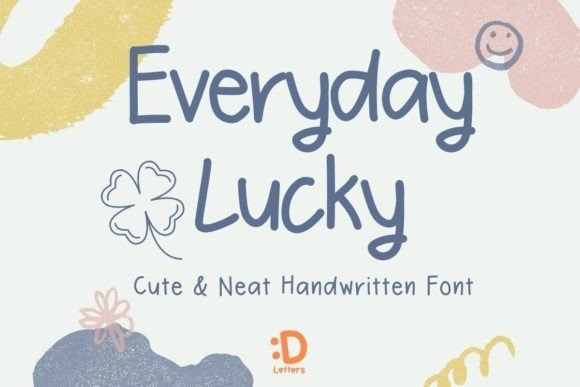
Unlocking Creativity with the Perfect Font
Have you ever found yourself lost in a sea of blank pages, struggling to get your creative juices flowing? We’ve all been there – staring at a blank screen, trying to conjure up the perfect idea, only to end up with a jumbled mess of thoughts and half-baked ideas. But what if I told you that the key to unlocking your creativity lies in the simplest of things – a font?
Enter Everyday Lucky Font, a charming and versatile handwritten font designed specifically for digital note-taking and creative projects. This font is a game-changer for designers, offering a unique blend of style and functionality that makes it perfect for everything from Procreate designs to blog posts, logos, and invitations. With Everyday Lucky Font, you can add a personal touch to your work and elevate your designs to the next level.
Everyday Lucky Font Key Features
- Font Family: A unique and playful script font, perfect for adding a touch of whimsy to designs.
- Unique Characteristics: Features a handwritten feel with subtle imperfections, giving it a personal and authentic touch.
Everyday Lucky Font Review
Overall, I think the Everyday Lucky Font is a solid, modern choice for digital designs. ✨ The font’s clean lines and friendly curves make it easy on the eyes, and its versatility shines through in a wide range of applications, from headings to body text.
Some of the standout features of the Everyday Lucky Font include:
- ✨ Excellent legibility: The font is easy to read, even at smaller font sizes.
- ✨ Friendly feel: The font’s curves and rounded edges create a welcoming atmosphere.
- ✨ Versatility: The font works well in both digital and print applications.
- ⚠️ Limited expressiveness: While the font is clean and modern, it may not be the best choice for projects that require a lot of personality or flair.
- ⚠️ Limited font weights: The font only comes in a few weights, which may limit its use in certain design contexts.
Overall, I think the Everyday Lucky Font is a great choice for designers who want a clean, modern font that’s easy to read and use. With a little creativity, it can add a touch of personality to even the most straightforward designs.
The ‘Everyday Lucky Font’ is ideal for designing promotional materials, such as posters, flyers, and business cards, that aim to evoke a sense of good fortune and positivity.
It’s also suitable for creating social media graphics, wedding invitations, and other celebratory designs.